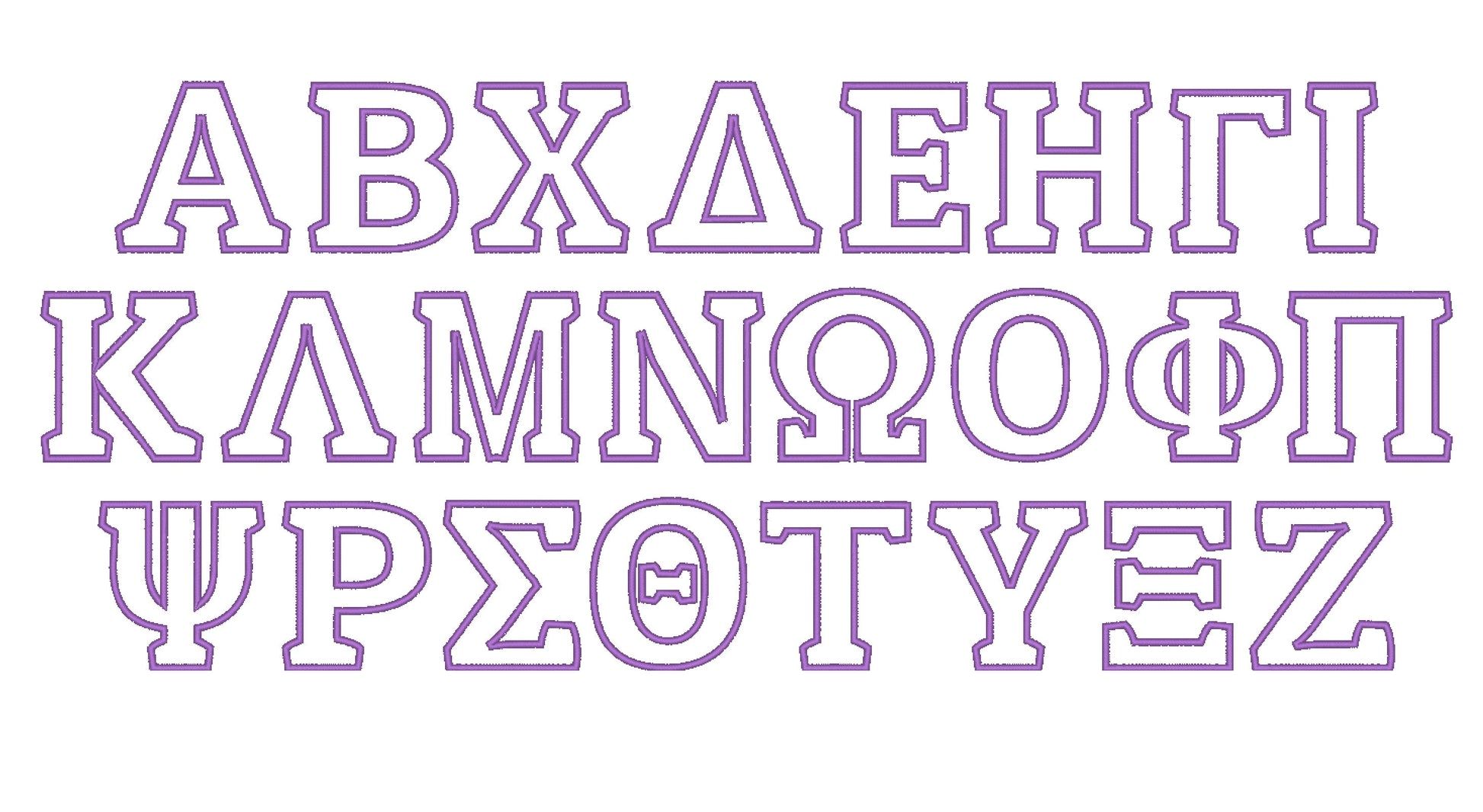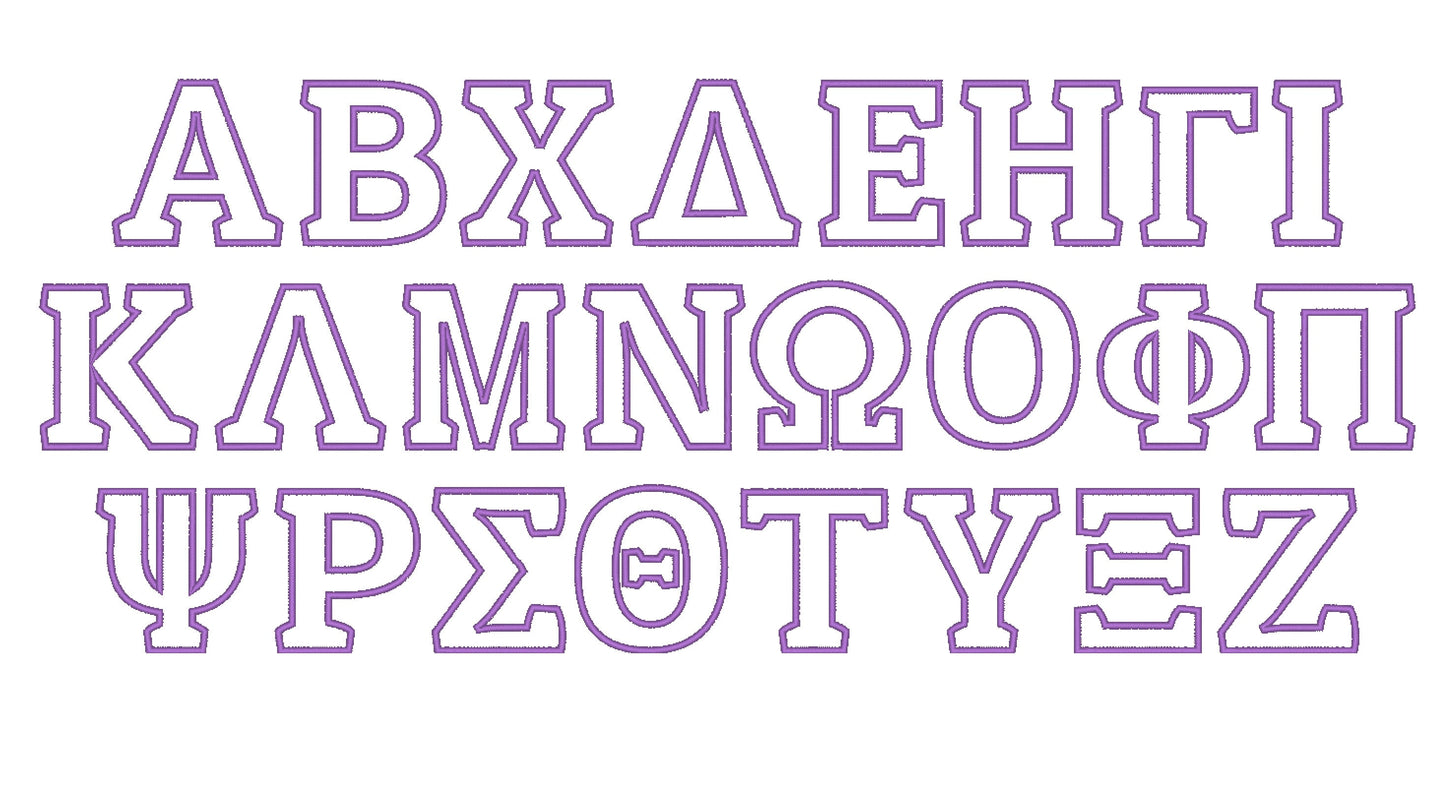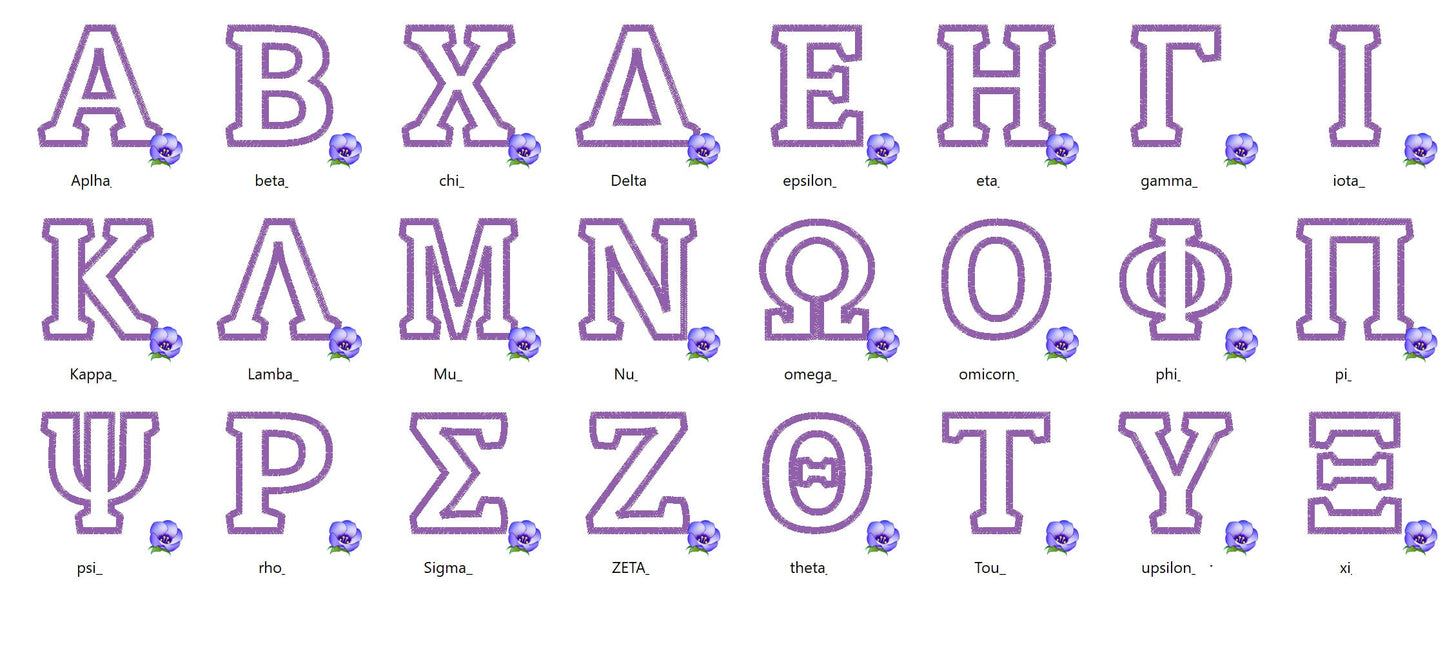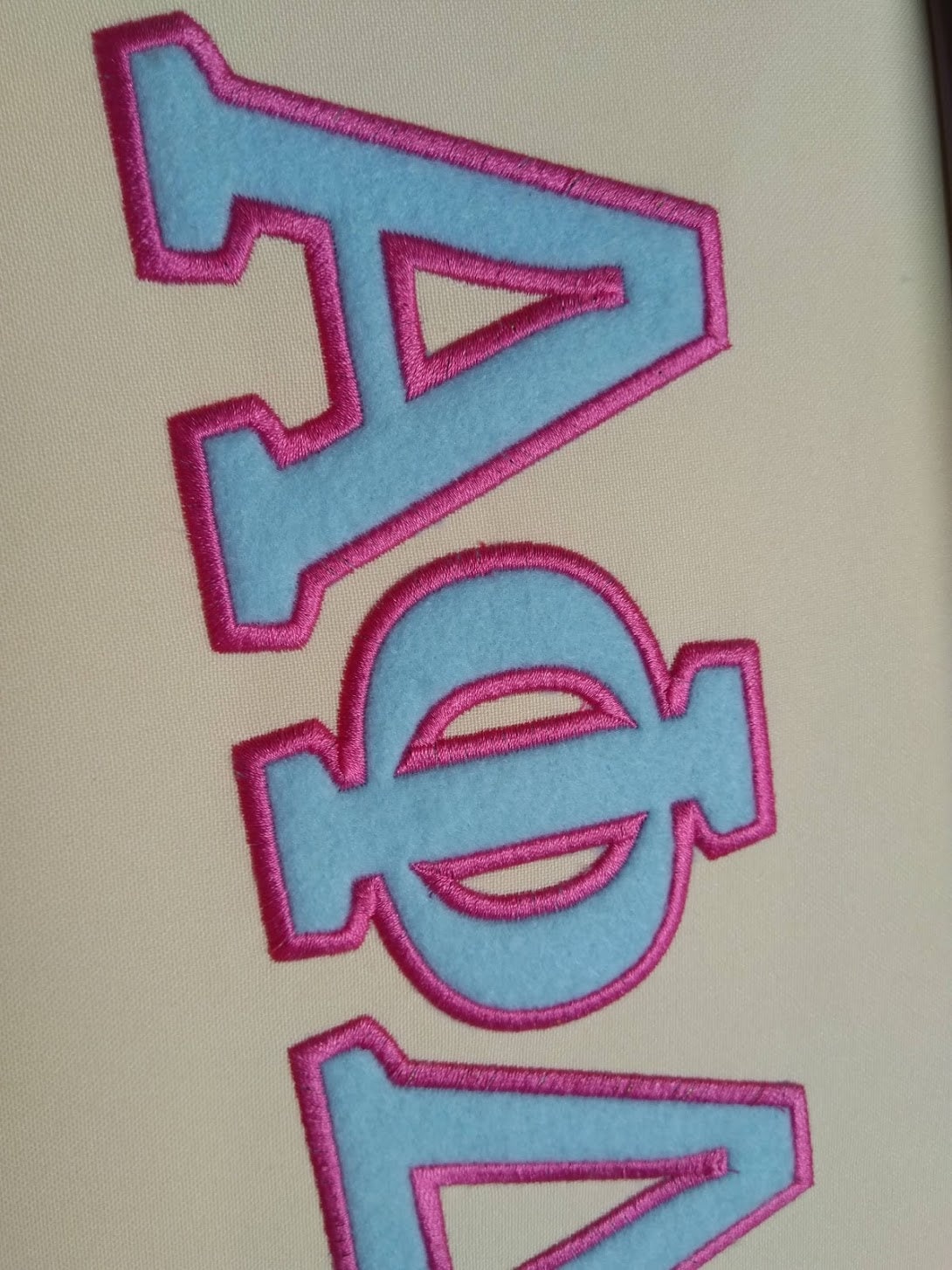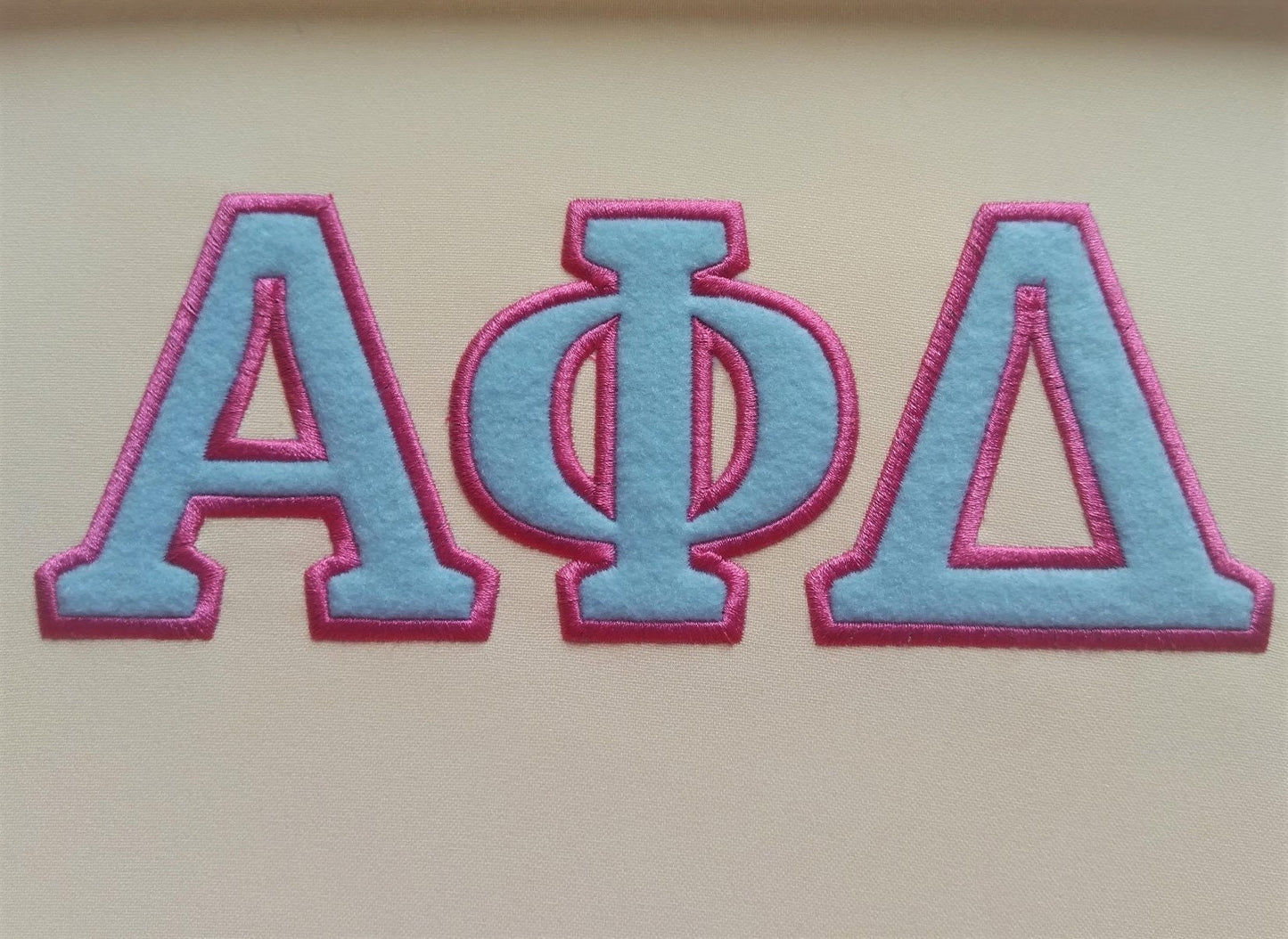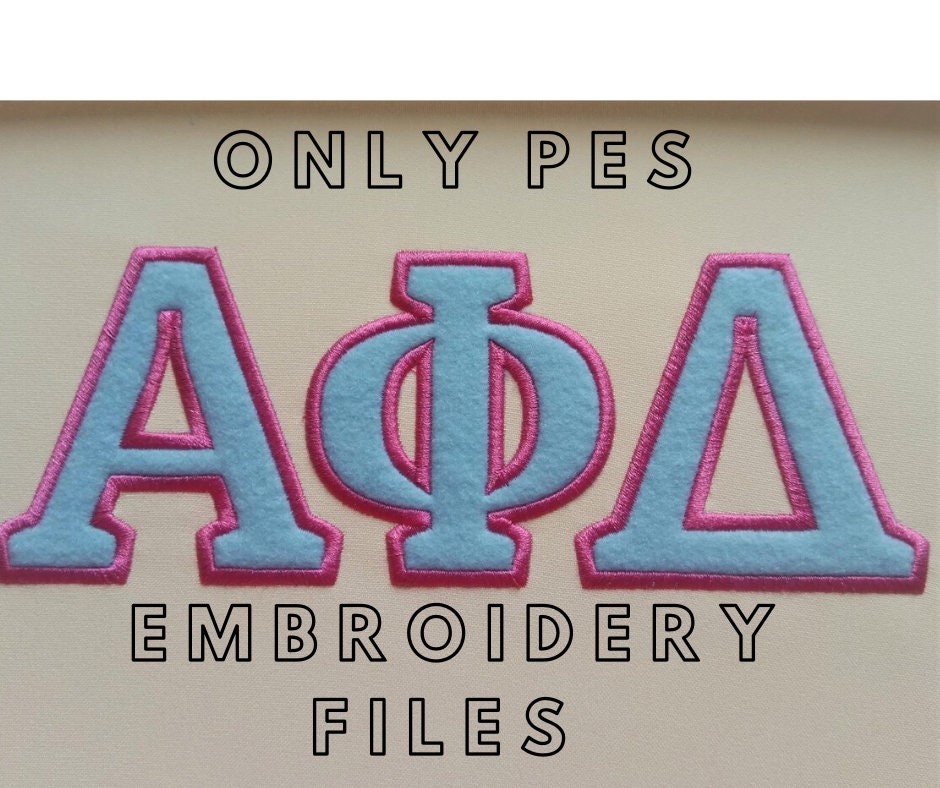
Or click to open the linkONLY PES files Fraternities and sororities Greek font, alphabet simple applique with contrast outline font machine embroidery designs
Fraternities and sororities Greek simple font with contrast outline (mini font machine embroidery..